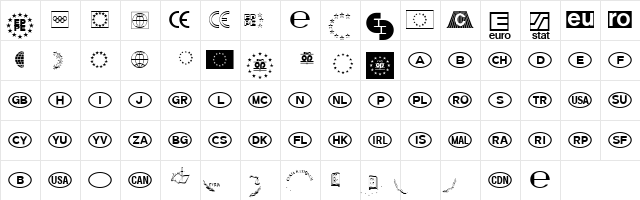
EEC LH Pi Regular Font Preview
EEC LH Pi Regular
Design Context for EEC LH Pi Typeface
EEC LH Pi is a composed and adaptable typeface that performs quietly and consistently across a wide range of design contexts.